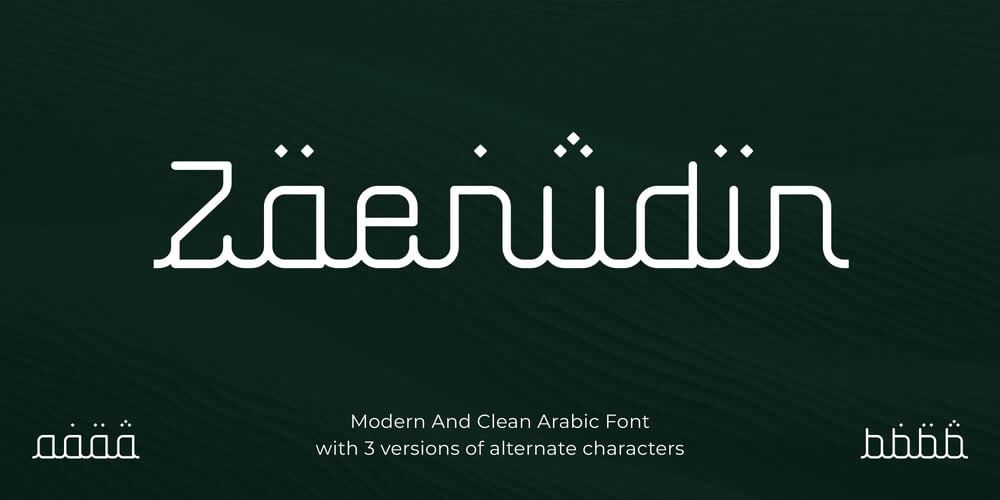
Zaenudin
Zaenudin font
Zaenudin Font Family was designed by Agustian Eko Saputro, Aprilia Nurina Putri and published by Mightyfire. Zaenudin contains 1 styles and family package options. Characterized by flowing curves, intricate ligatures, and graceful strokes, Zaenudin – the Arabic decorative fonts are a testament to the inherent beauty of the written language. Each letter is meticulously crafted to harmonize with its counterparts, creating a seamless and harmonious visual experience. The script’s cursive nature adds a sense of fluidity, allowing the eye to effortlessly traverse the characters in a rhythmic dance.Whether used in print or digital media, Zaenudin possess a unique ability to evoke a sense of identity, connecting the viewer to the rich history and diverse cultures of the Arabic-speaking world. We’re proud and honored if Zaenudin can be the part of your special projects. Thank you ๐Ÿ™‚